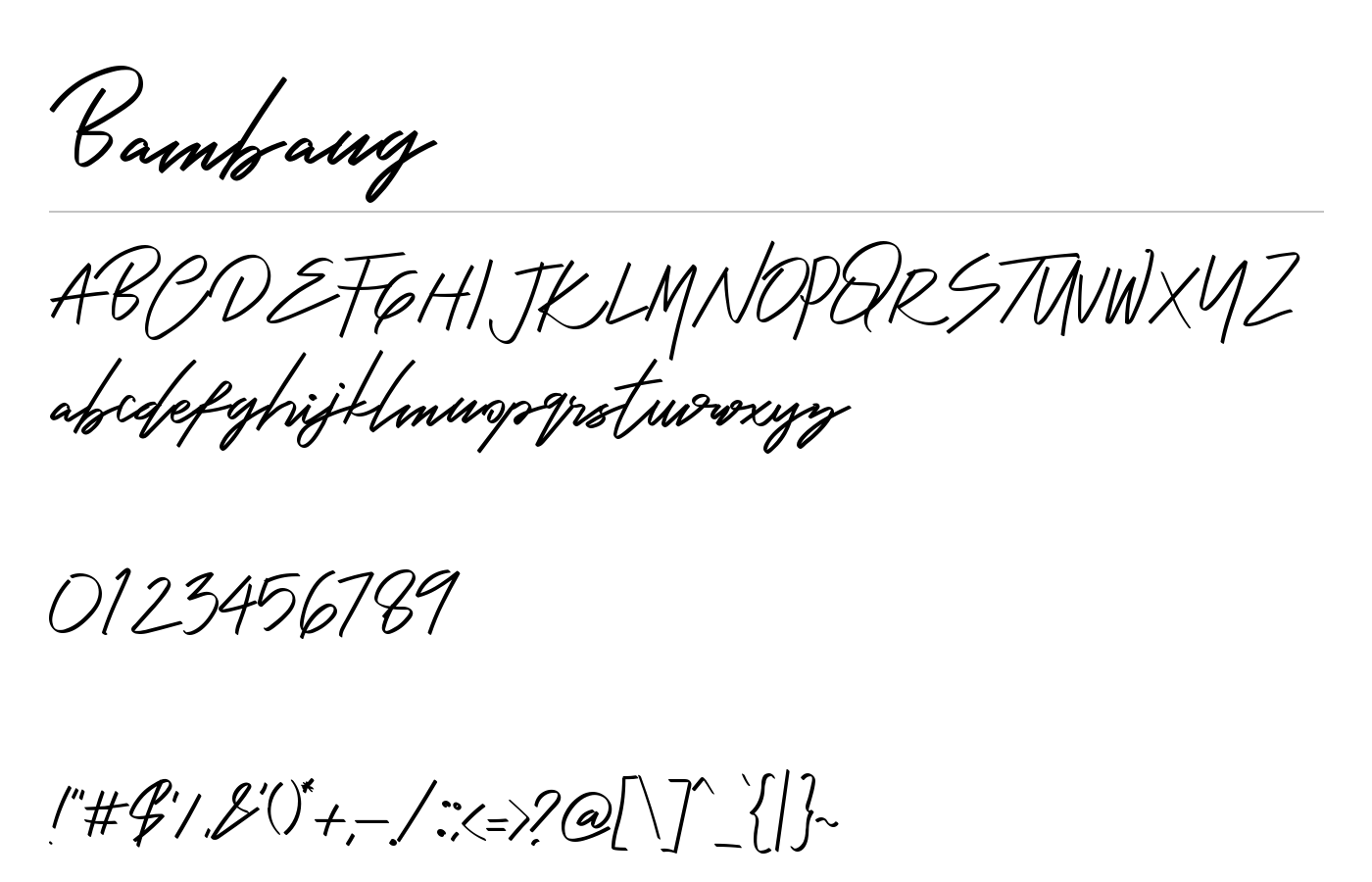
Bambang is a stylish script font with a casual, handwritten feel characterized by its slender, slightly slanted strokes and dynamic, fluid letterforms. Its light weight and airy spacing make it perfect for creative projects that need a personal, elegant touch, such as invitations, branding, or fashion-related designs, where a modern yet approachable look is desired.
Bambang Font
About Bambang Font
| Font family | Bambang Font |
| Designer | Dimas Prasetyo |
| Trademark | Dm Letter Studio Bandung - Indonesia |